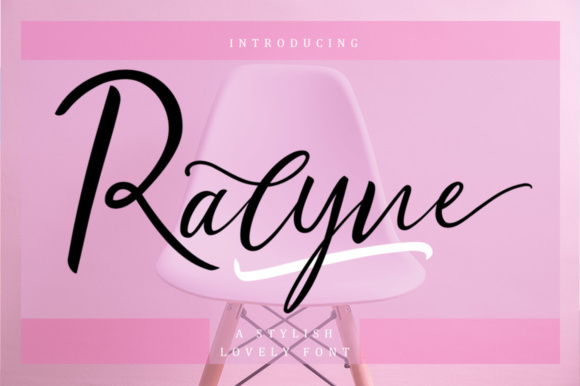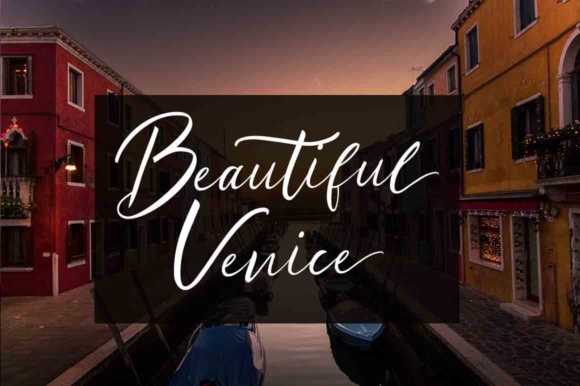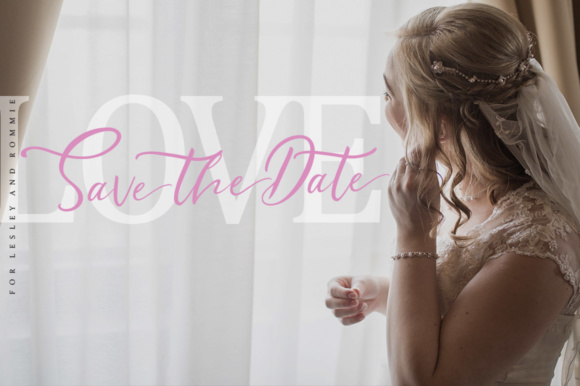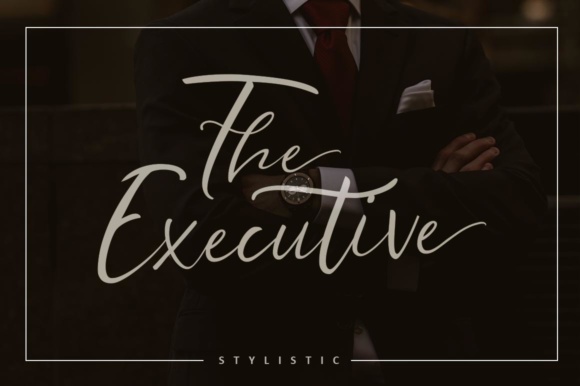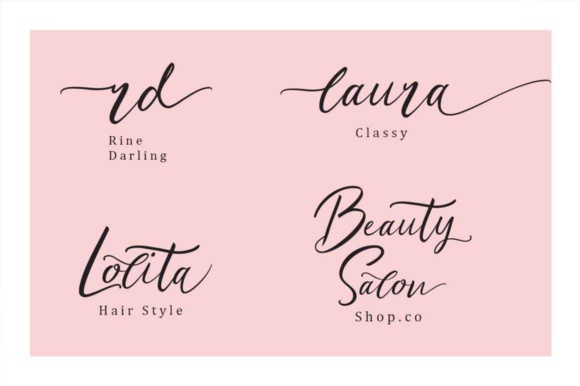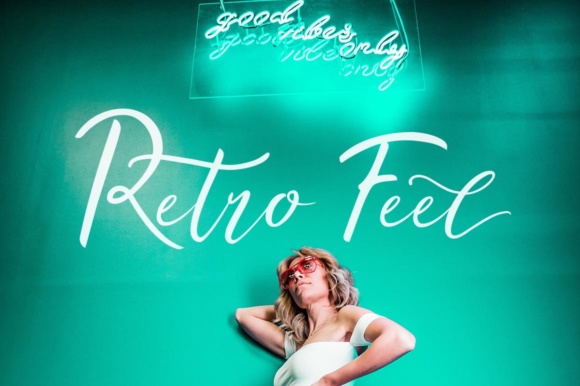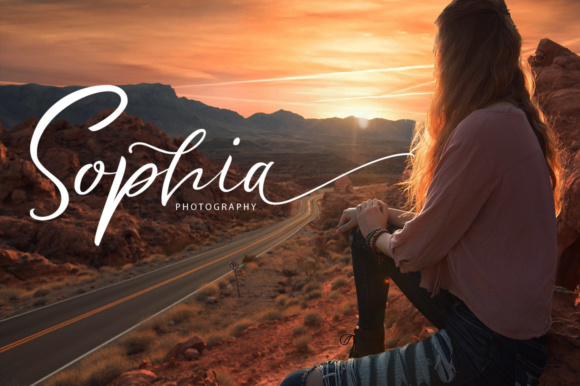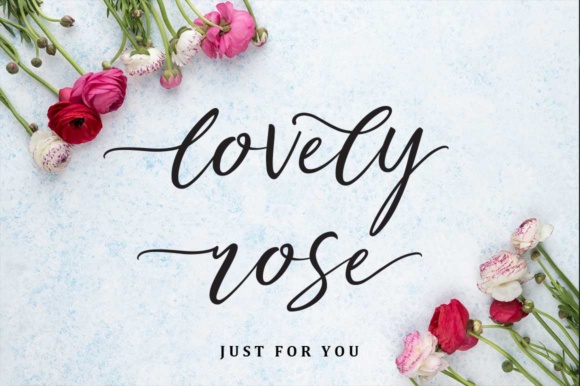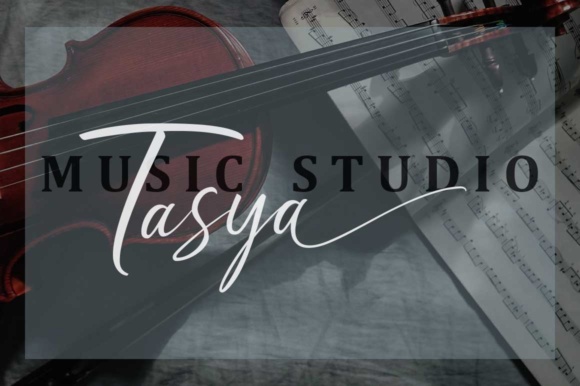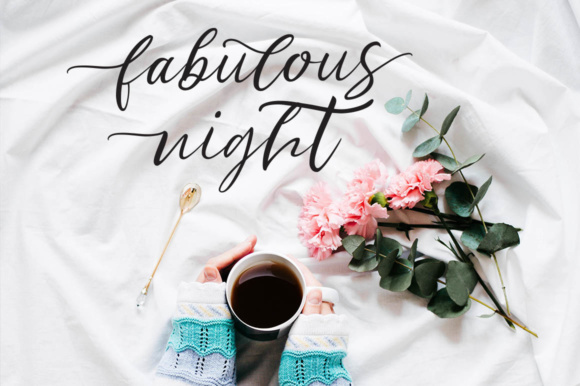
Ralyne Script Font
About Ralyne Script Font
The Ralyne is a lovely stylish calligraphy font with handwritten, sophisticated flows. It offers a beautiful typographic harmony for a diversity of design projects,